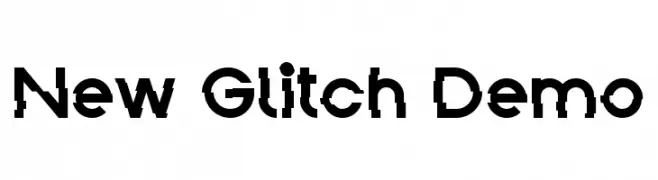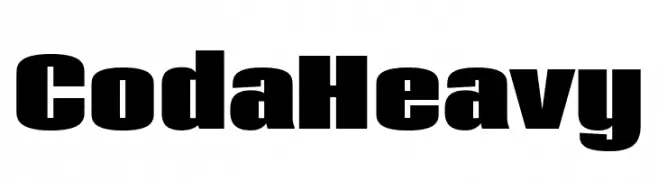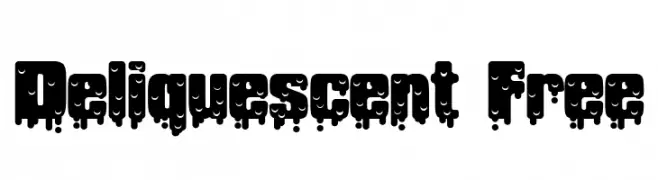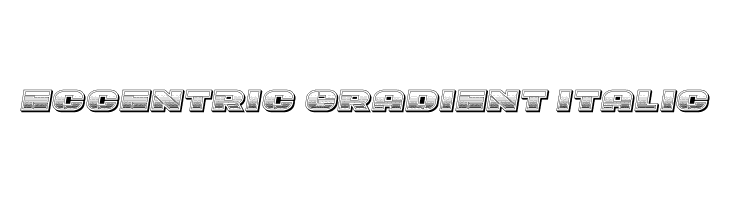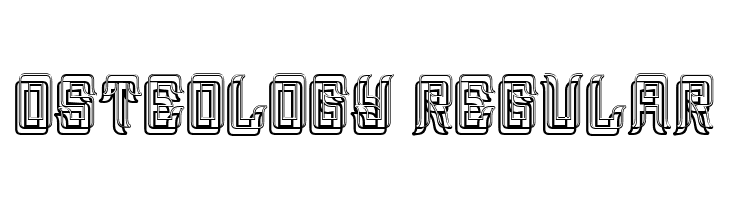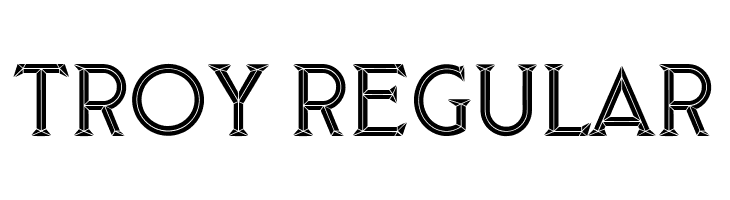
( Fonts by Tyler Finck )
A bold, three-dimensional block font ideal for impactful headlines.
( Fonts by RaisProject )
A bold, glitch-inspired font with a modern, digital aesthetic.
( Fonts by Vernon Adams )
A bold, modern font with thick strokes and tight spacing, perfect for impactful designs.
( Fonts by TracerTong Fontworks )
A playful, bubble-filled decorative font with bold, rounded characters.
( Fonts by Jovanny Lemonad )
A classic serif font with high contrast and elegant serifs.
( Fonts by Helotype )
A playful, outlined font with whimsical patterns and a handmade feel.
( Fonts by Brittney Murphy Design )
A playful, bus-themed decorative font ideal for educational and children's projects.
( Fonts by TracerTong Fontworks )
A bold, dripping effect font with a playful and edgy style.
( Fonts by Joel Carrouche )
A bold, angular font with a geometric and edgy design.
A bold, decorative font with intricate detailing and a luxurious feel.